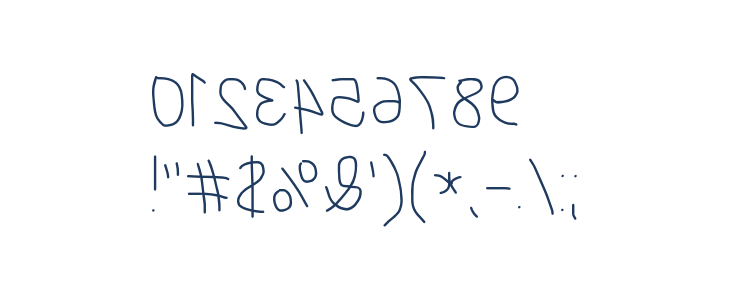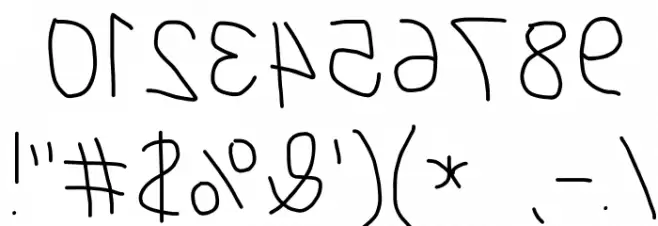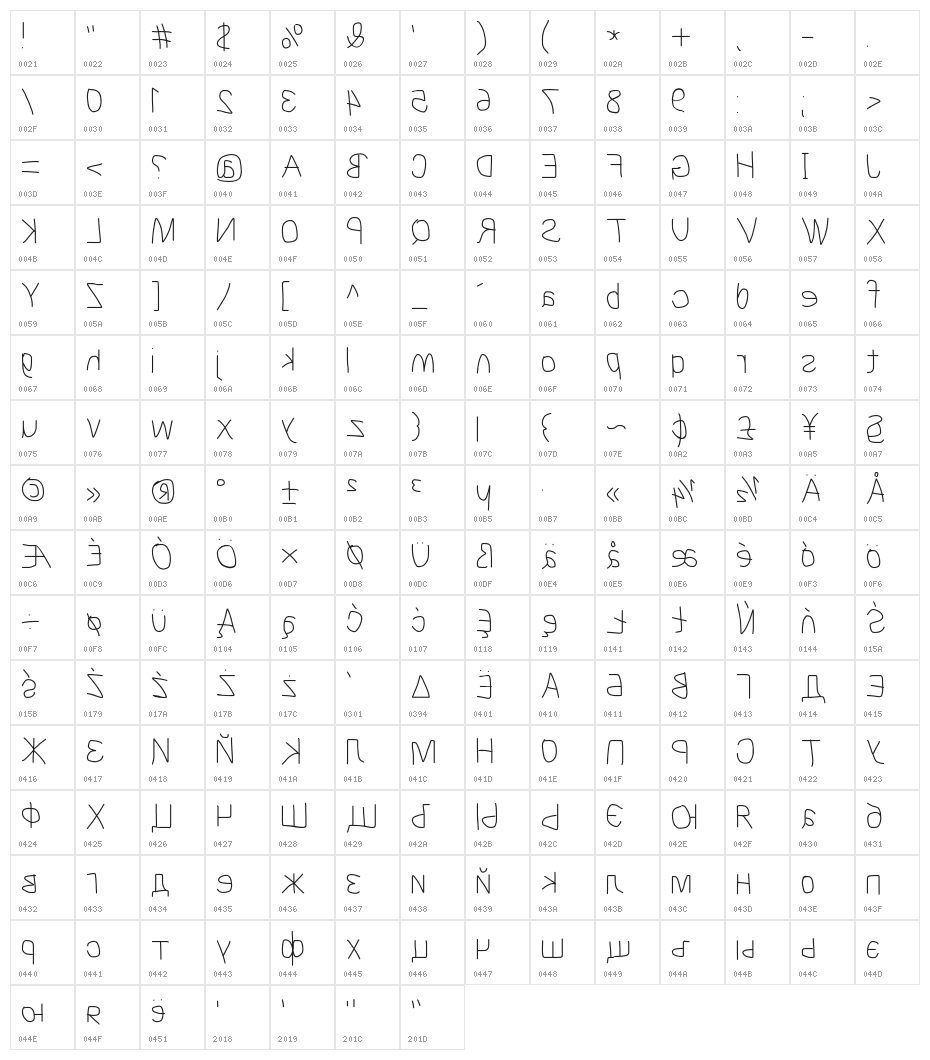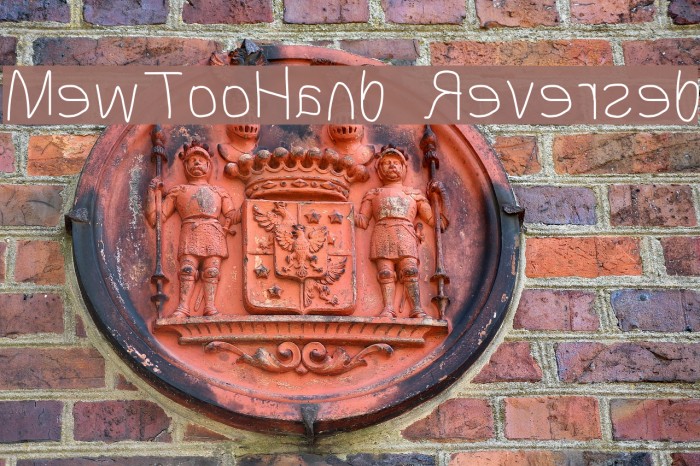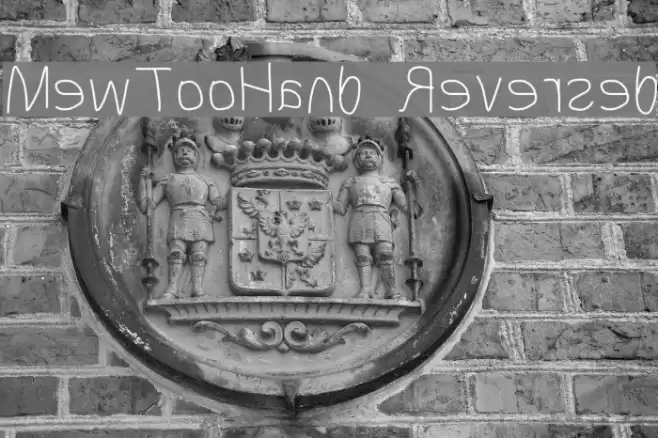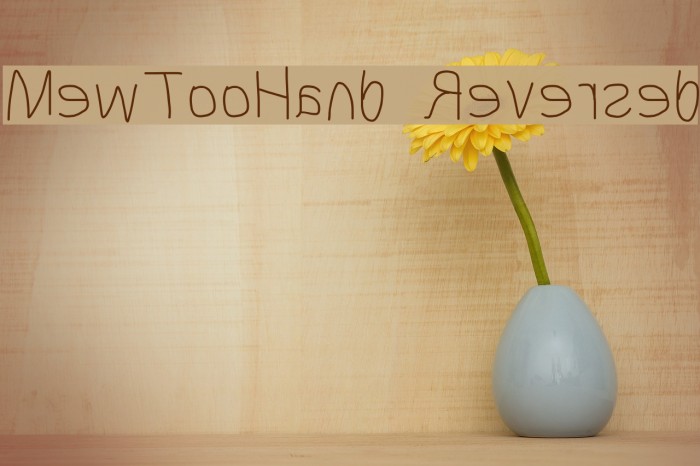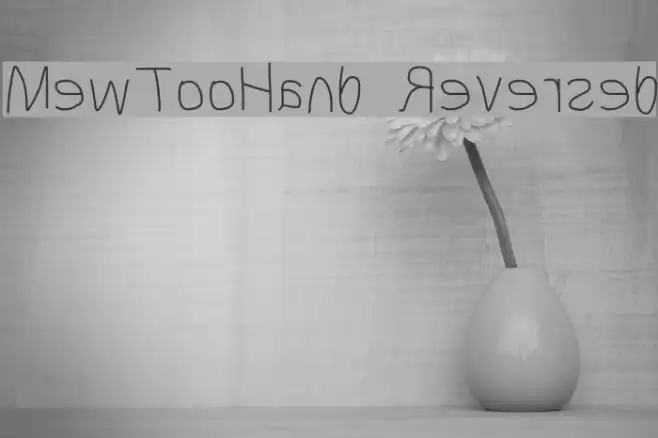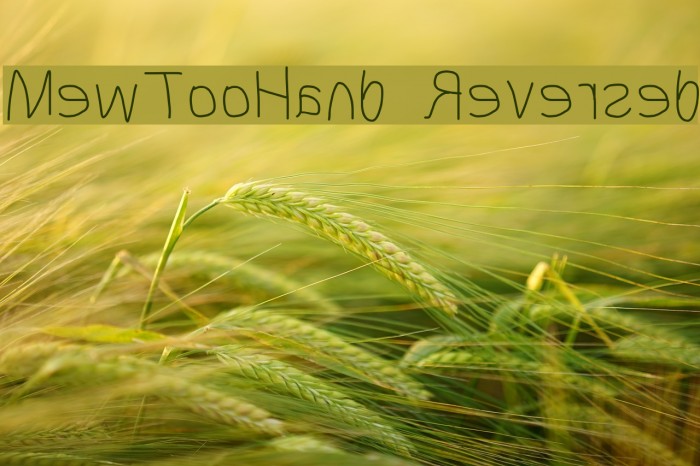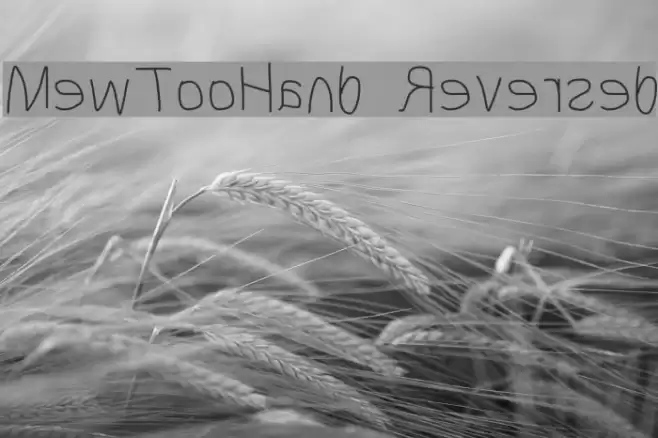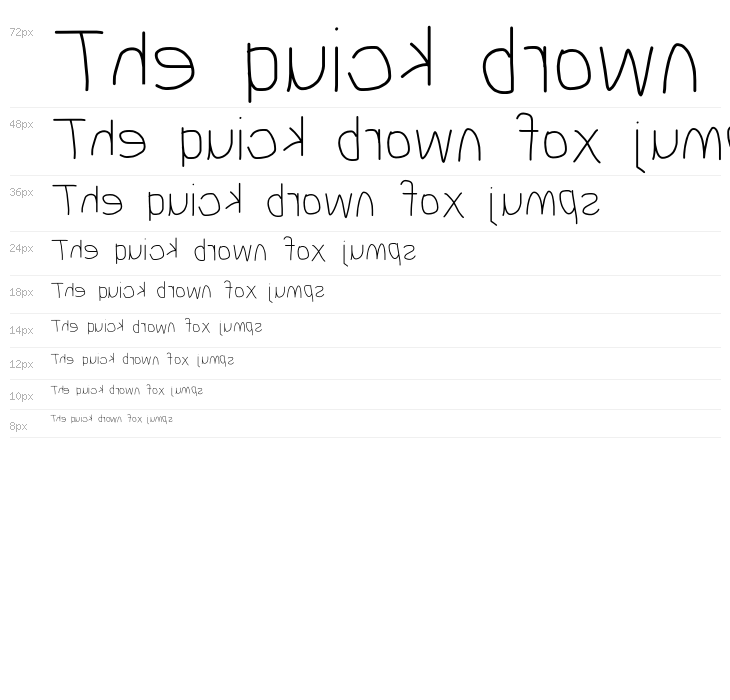
MewTooHand Reversed Font
MewTooHand Reversed Description
This font features a playful, handwritten style with reversed characters, giving it a unique and quirky appearance. The letters are slightly irregular, adding to the hand-drawn feel. The strokes are consistent in thickness, providing a uniform look despite the reversed orientation. This font includes both uppercase and lowercase letters, numbers, and a variety of special characters, all maintaining the reversed style. The overall design is casual and informal, making it suitable for creative and fun projects.